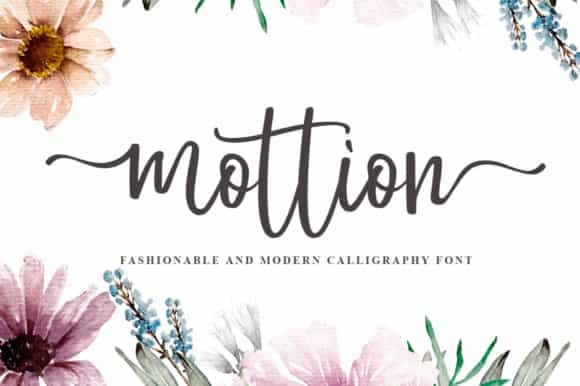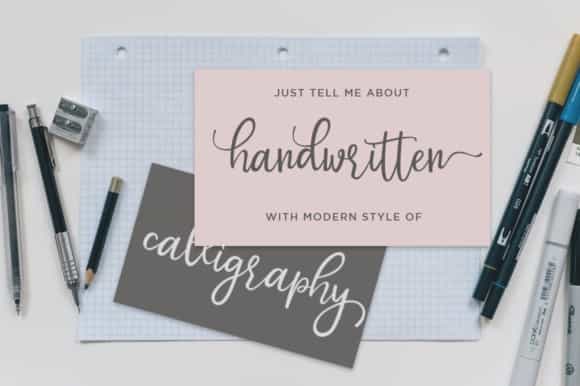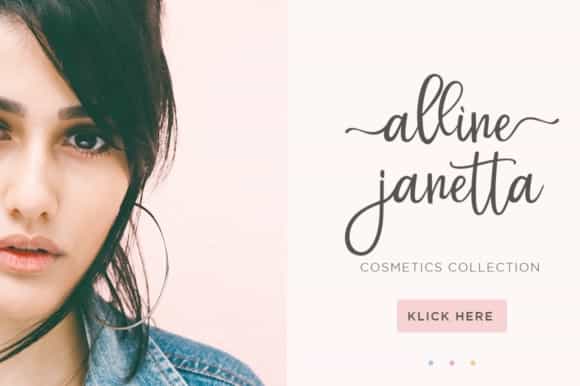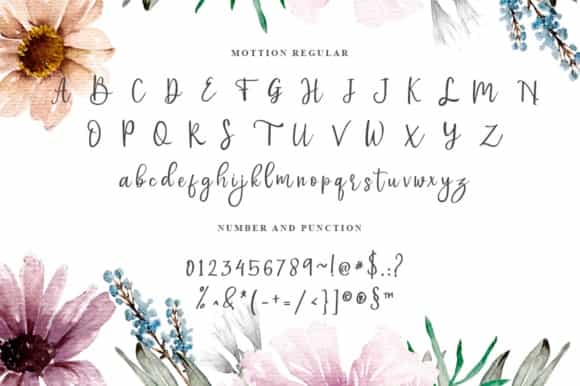
Mottion is a gorgeous contemporary script fonts for calligraphy. They includes uppercase and lowercase symbol, and can also be used to support multi-language. It includes double ligatures as well as initial and terminal swash along with a specialized swash, as well as numerous other fonts.